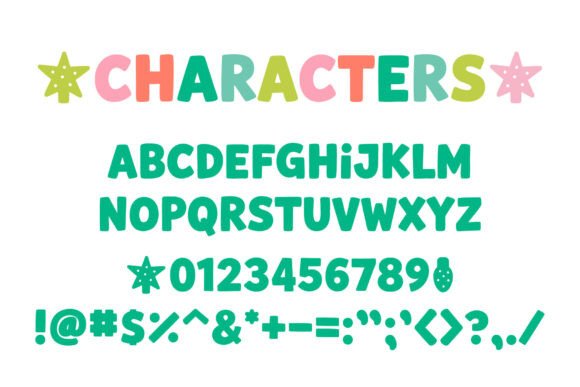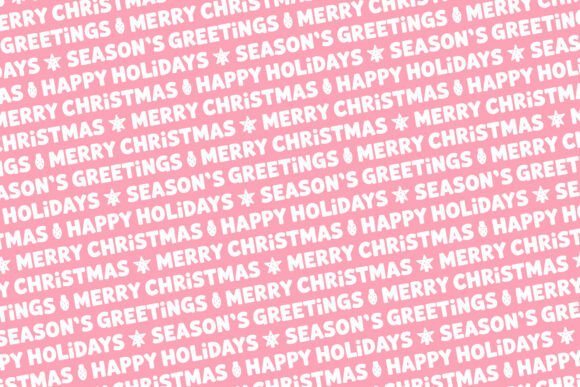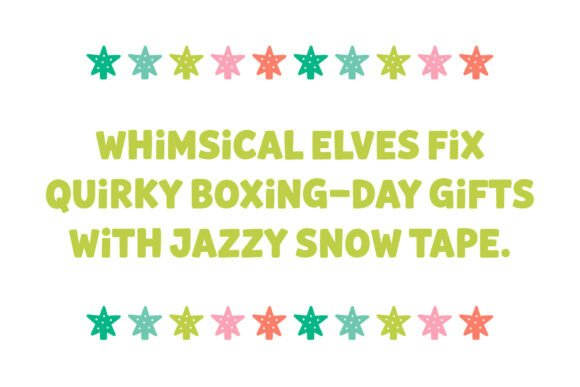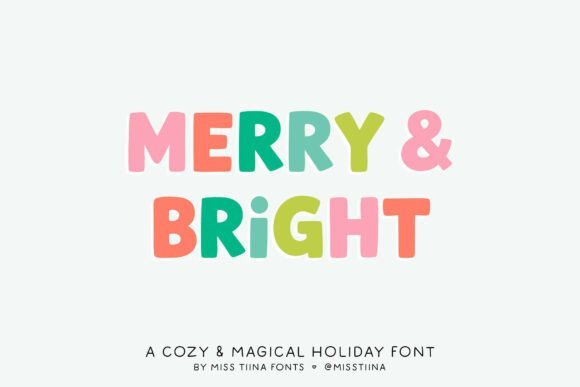
Introduction to Merry & Bright Font
Merry & Bright is a sweet, chubby, and cheerful display font that brings cozy holiday charm to every project.
The Merry & Bright typeface is a supremely cozy and magical holiday font designed to capture the sweet, innocent joy of the most wonderful time of the year This bubbly, rounded sans-serif font uses soft, friendly letterforms that feel instantly huggable and cheerful.